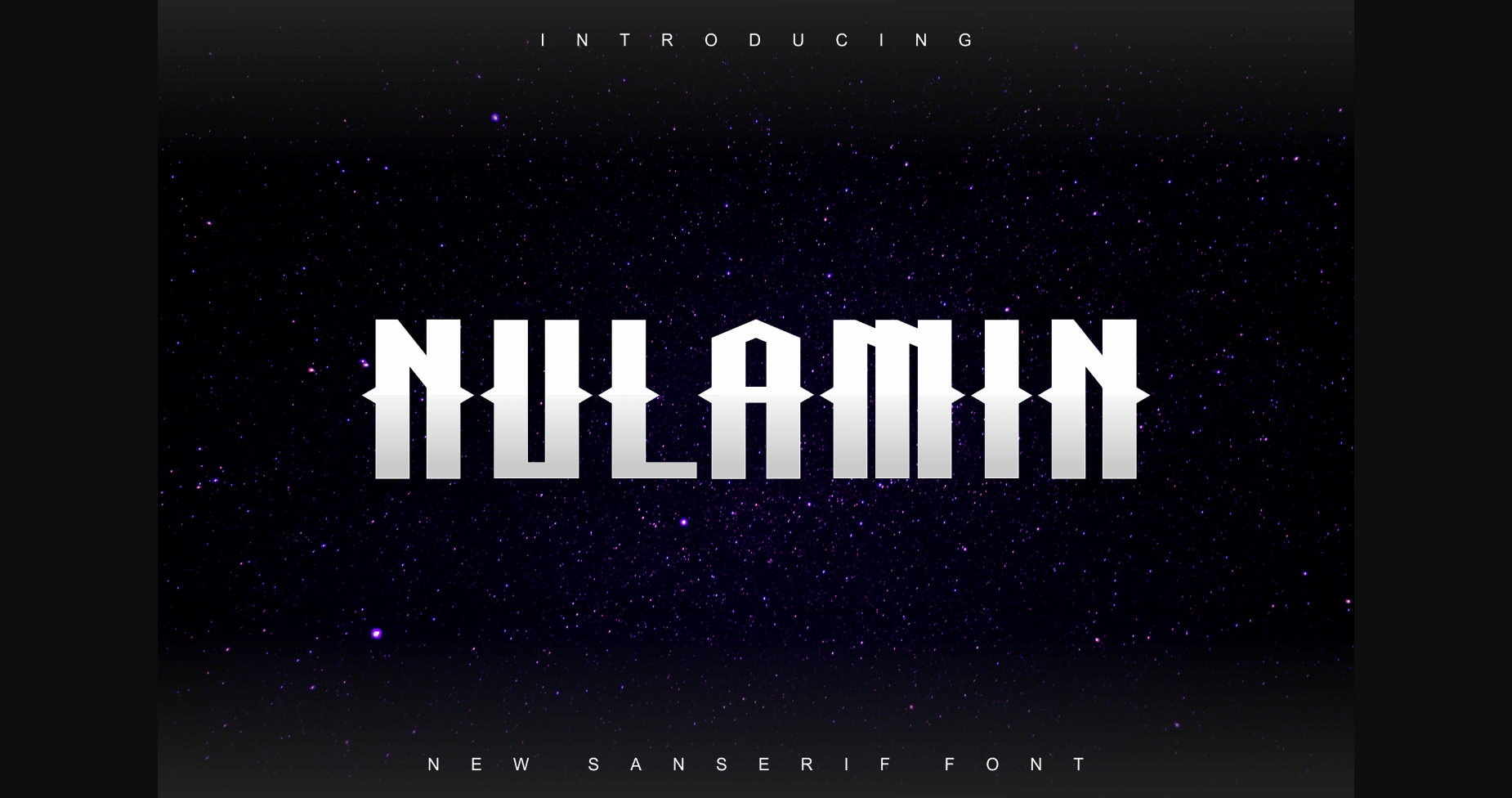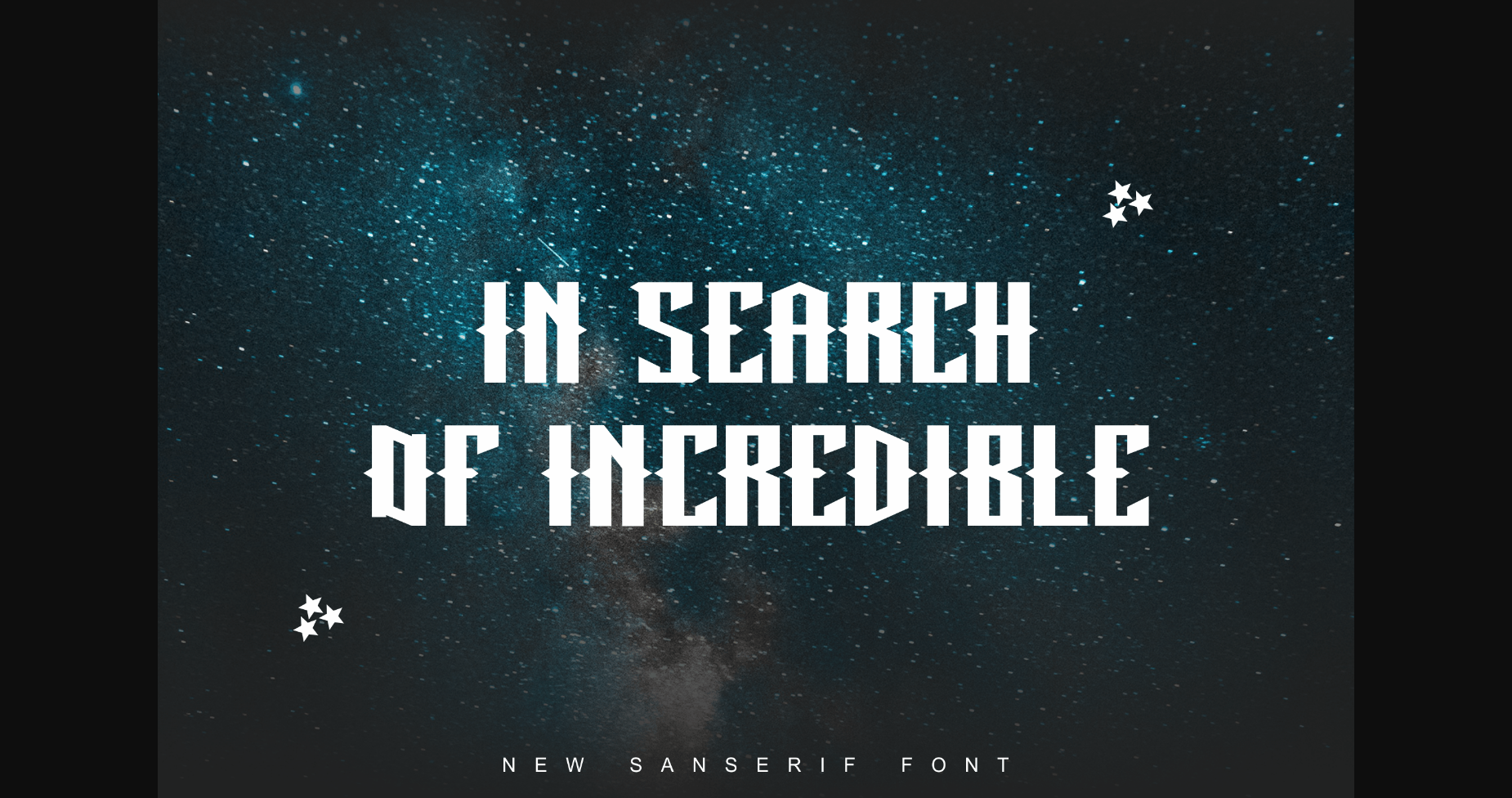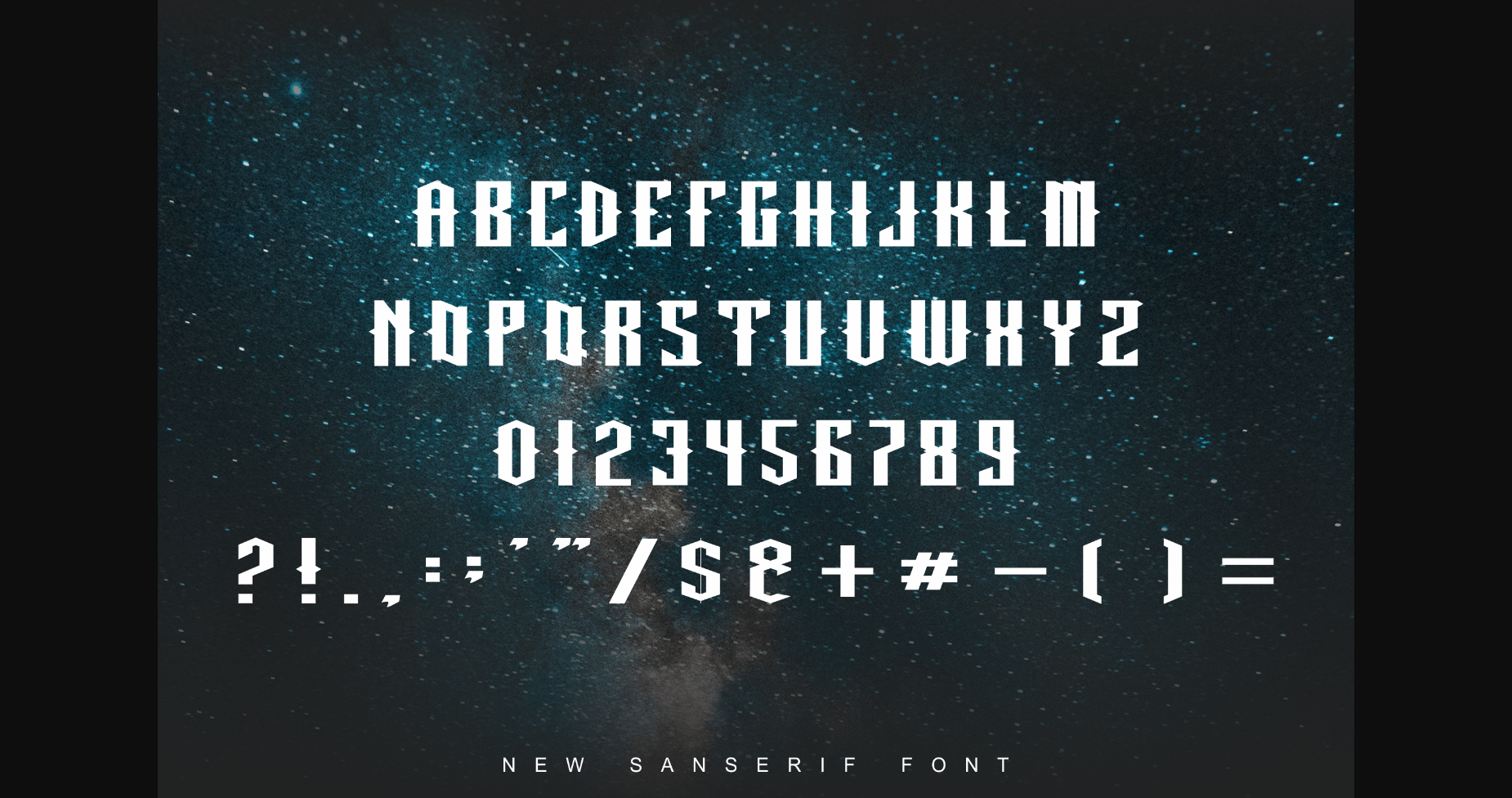
Nulamin Font
About Nulamin Font
Nulamin is a futuristic sans serif typeface. Nulamin takes inspiration from sci-fi films, games, and concept art. Great for typography purposes on headlines, posters, and many more.